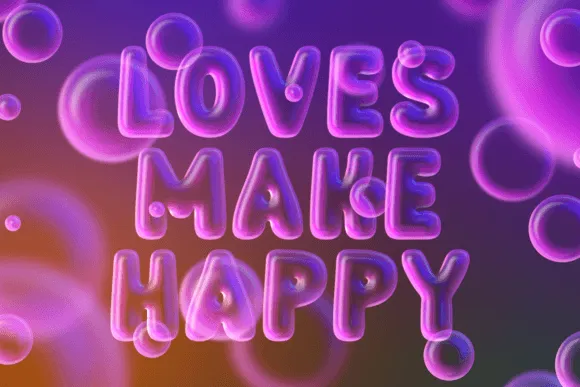
Bubble Party Font is a tomfoolery and effervescent presentation textual style that gives pleasure to your tasks. Its lively style adds a hint of fervor to any plan, making it ideal for party solicitations, banners, from there, the sky is the limit. With its lively bends and eccentric appearance, Air pocket Party makes certain to make your text pop with character.